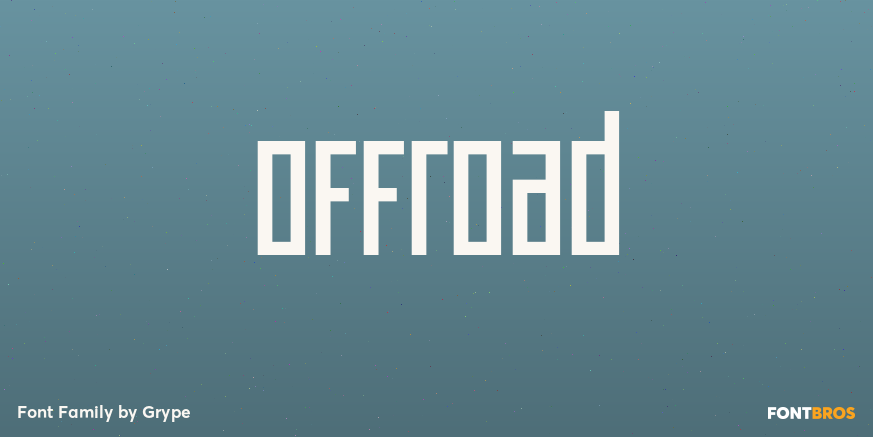
Offroad
About Offroad
Geometric typefaces can harken back to and visually tie themselves to so many genres, from constructivist posters, to techno club flyers, to raw industrial era power. The Offroad family finds its origin of inspiration in the O?Neal MX logo for their motocross…